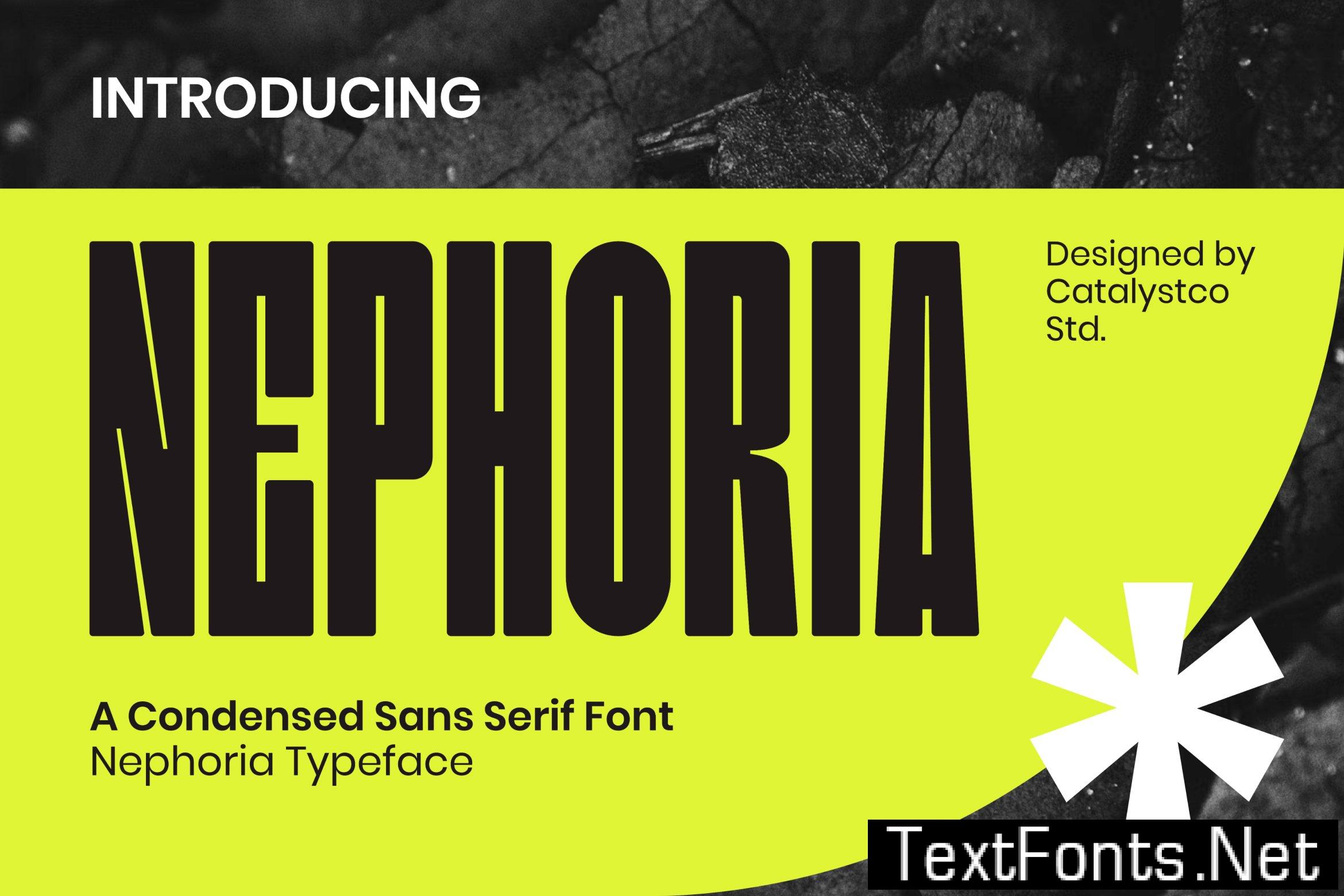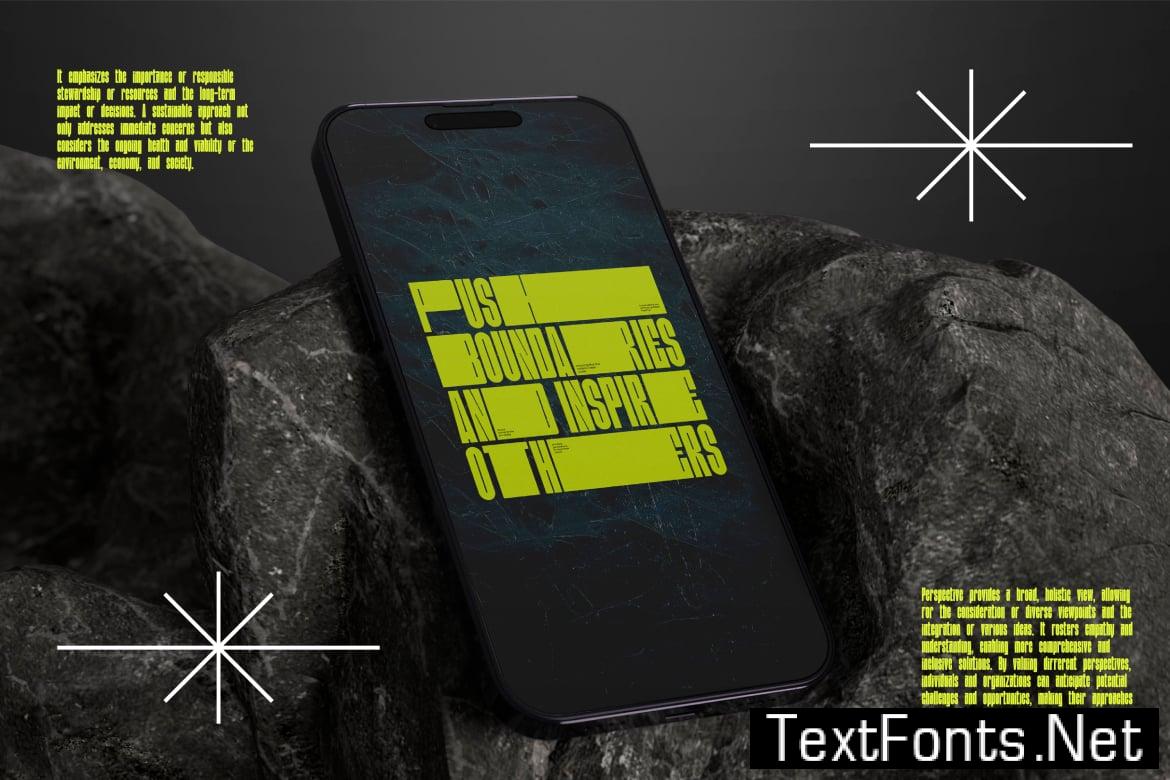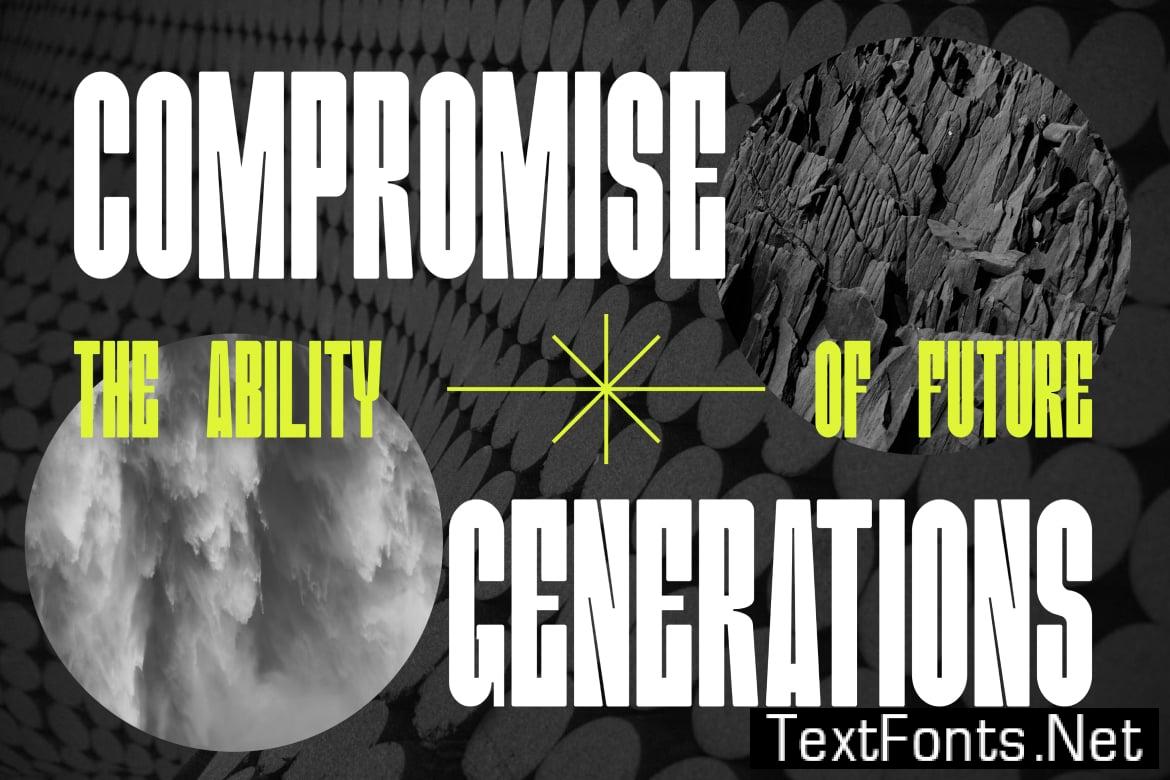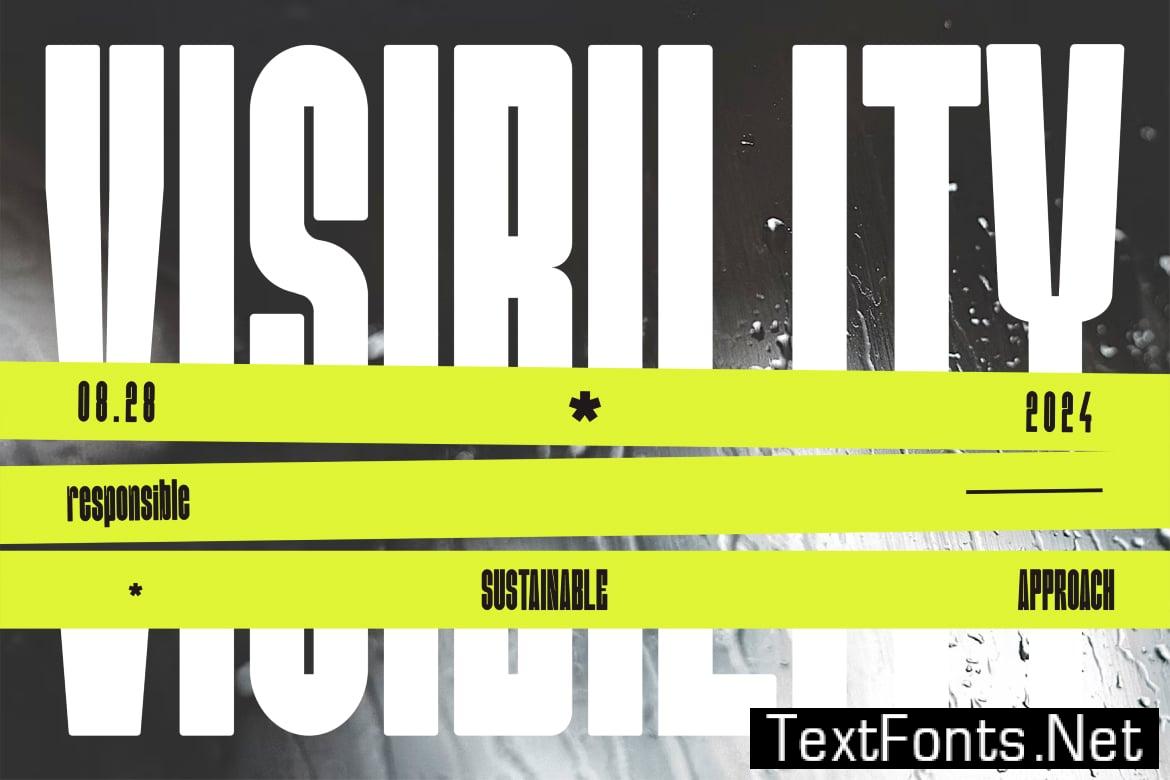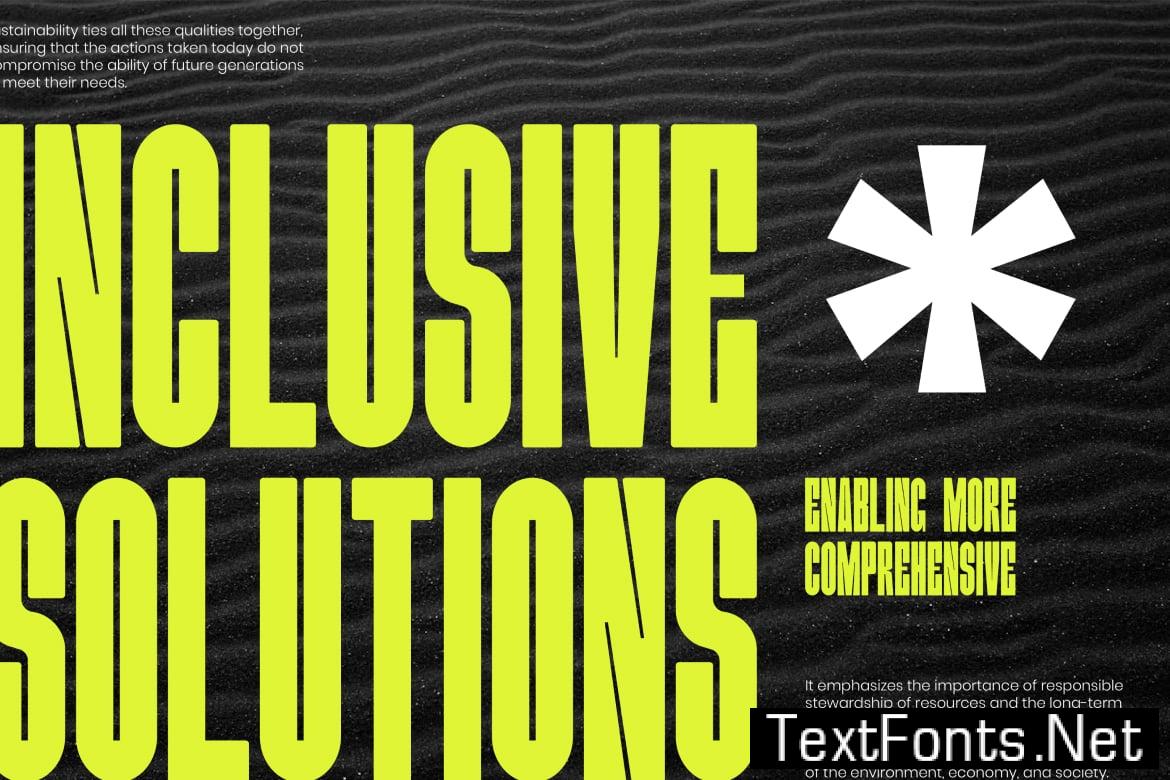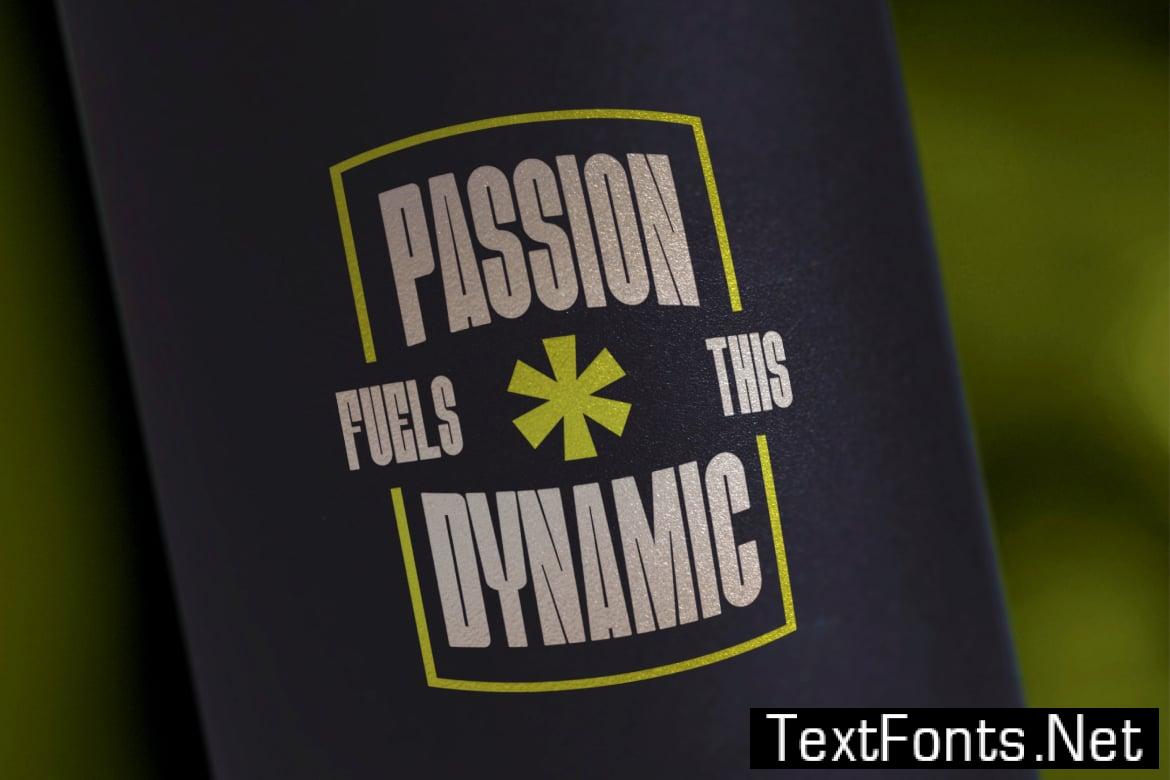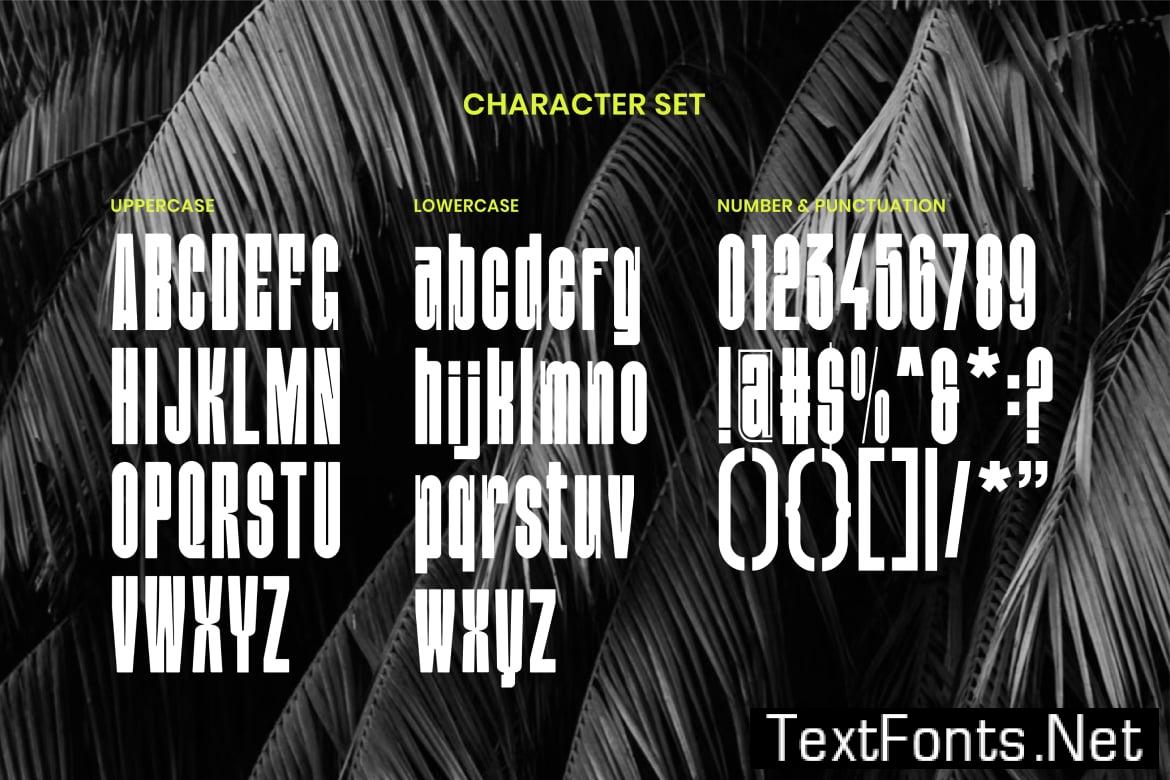
**Nephoria Condensed Sans Serif Font** typeface excellent used for the manufacture quote text, logotype, header magazine, and many more.
* Uppercase & Lowercase
* Ligatures & Alternate
* Numeral & Punctuations